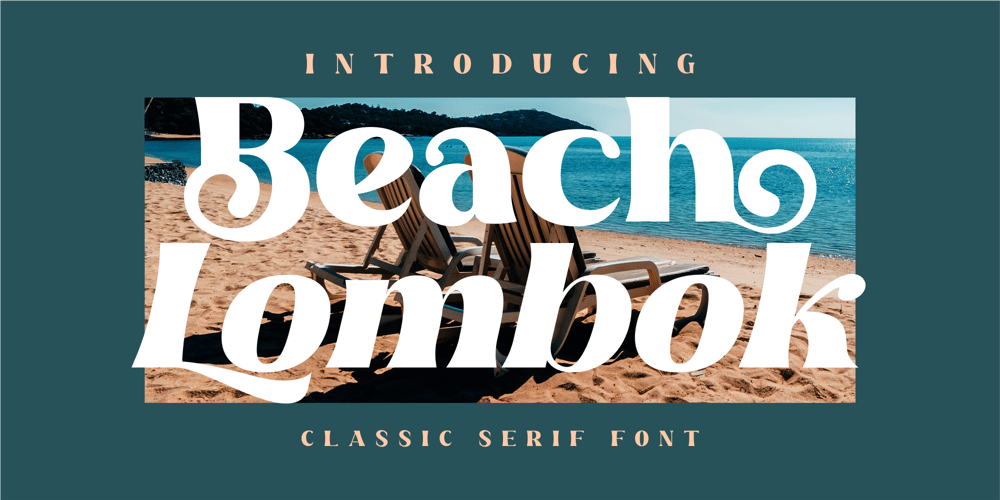
Beach Lombok
Beach Lombok font
Beach Lombok Font Family was designed by Heru Utama Putra and published by Letterena Studios. Beach Lombok contains 2 styles and family package options. Beach Lombok is a modern and clean display (Serif) font create from our talented font designer. The design of Bogota will make your design more beautiful and inspiring. This font will suitable for any project, like branding, print template, logo and etc.Features:Accents (Multilingual characters)AlternatesLigaturesPUA encodedNumerals and Punctuation (OpenType Standard)